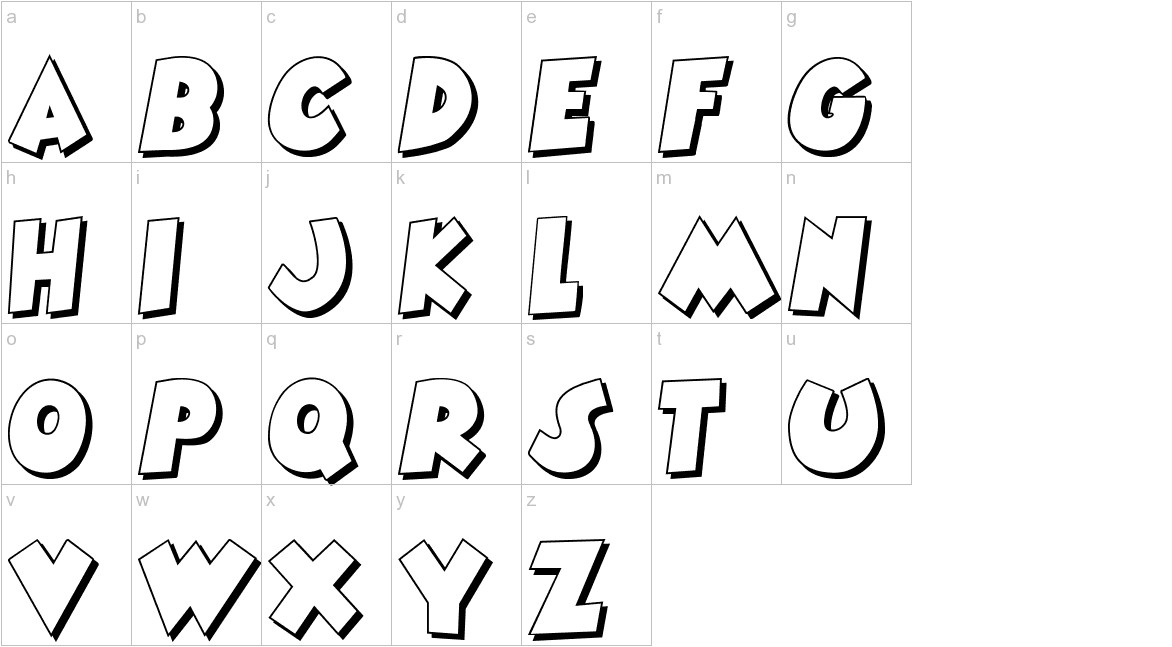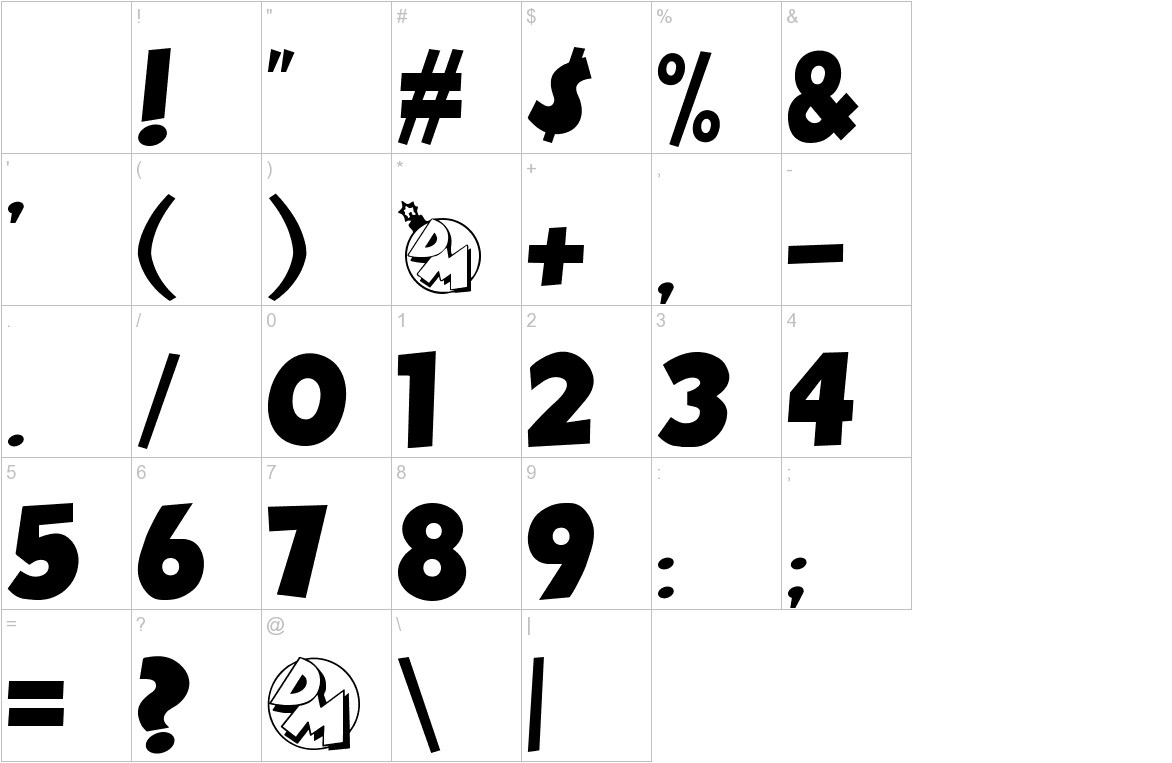
DANGER MOUSE
I have wanted to create a comic typeface based on one of my favorite TV shows from my childhood. So this is for all you would be Rodent Secret Agents out there !
He's the greatest
He's fantastic
Wherever there's danger he'll be there
He's the ace
He's amazing
He's the strongest he's the quickest he's the best
HE'S DANGER MOUSE + PENFOLD (of course)
He's the greatest
He's fantastic
Wherever there's danger he'll be there
He's the ace
He's amazing
He's the strongest he's the quickest he's the best
HE'S DANGER MOUSE + PENFOLD (of course)